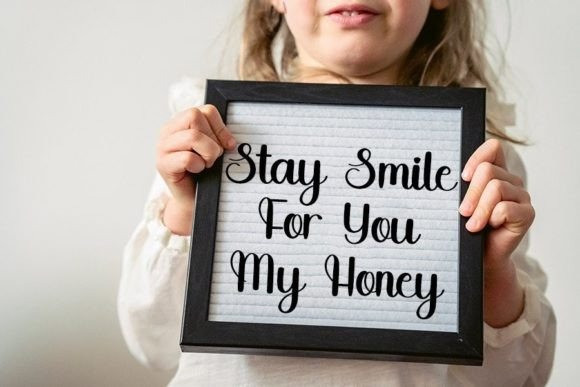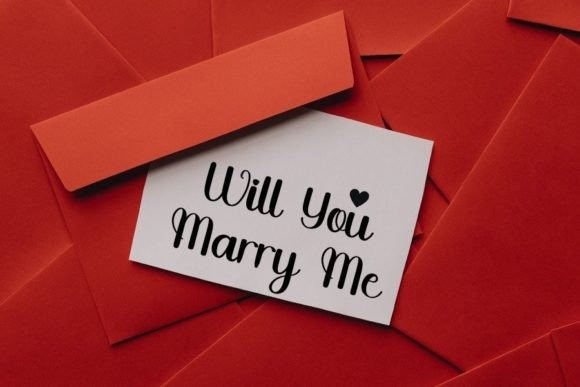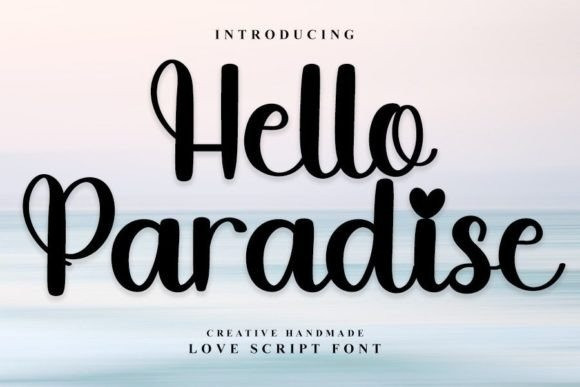
Hello Paradise Font
Hello Paradise Font is a stylish handwritten font with a contemporary atmosphere and impeccable form, inspired by timeless classic calligraphy. Balanced and varied, this font was designed to enhance the beauty of your projects.